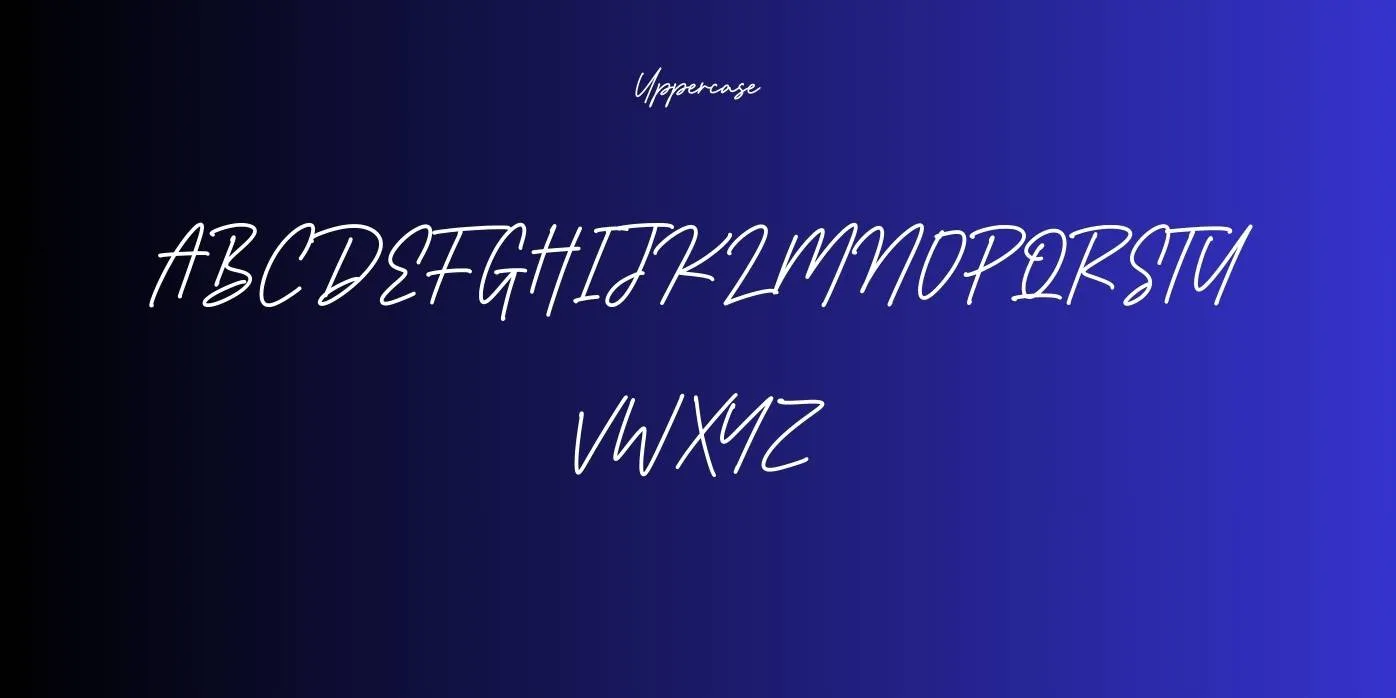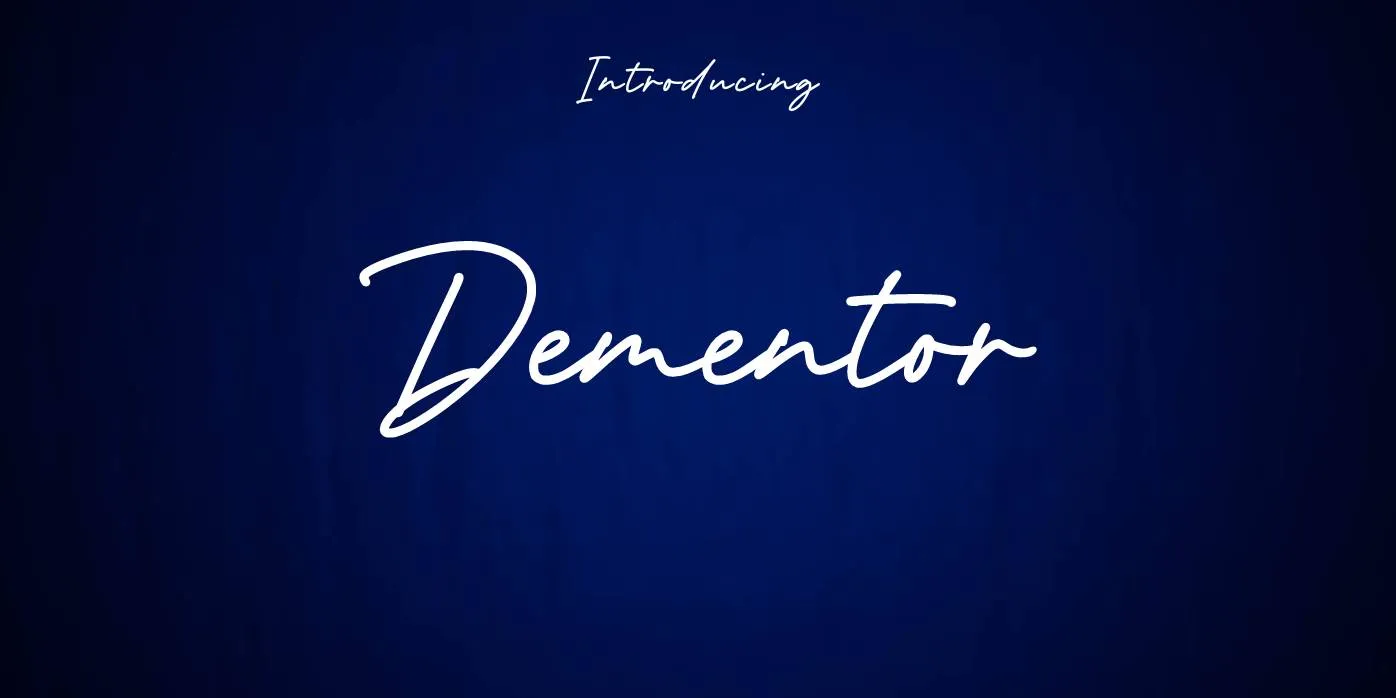
Dementor Font
Introducing a handwritten type texture. Balpirick Studio designed Dementor Font. The characters of this texture are thin, stylish, low readable, and attractive. This family has only one regular style.
The characters of this font are stylish and thin which is useful for many projects like branding, labels, logos, and something like that. This font also contains capital letters, lowercase letters, numbers, special letters, punctuation, and many international characters. The habel font is usually paired with this texture. You can easily utilize this exceptional pair in many valuable designs.